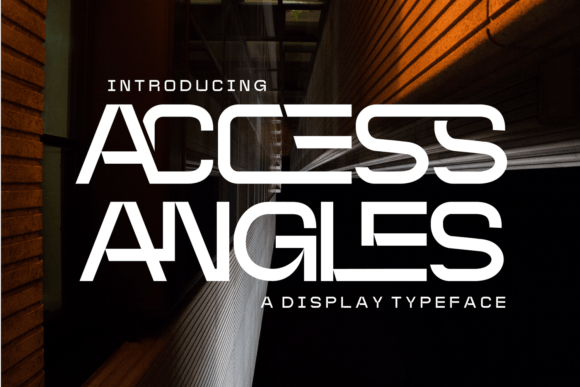
The Perfect Font for Your Next Design Project
Remember that moment when you’re brainstorming ideas for your next project, and you just can’t seem to find the right font to bring your vision to life? It’s frustrating, but don’t worry, we’ve got you covered. After scouring the web for the perfect sans serif font, we stumbled upon Access Angles Font – a game-changer for designers looking to give their projects a futuristic and modern twist.
Access Angles Font is a light and minimalist logo font family that’s perfect for creating clean and simple logos, social media graphics, and web designs. Its unique lowercase letters add a touch of elegance, making it an ideal choice for businesses and creatives alike. With Access Angles Font, you can take your designs to the next level and stand out in a crowded market.
Key Features of Access Angles Font
- Font Family: Access Angles is a sans-serif font family designed for digital use.
- Unique Characteristics: Features a distinctive geometric design with angled lines, creating a modern and dynamic feel.
Access Angles Font Review
Overall, I’m really impressed with the clean and modern aesthetic of the Access Angles Font. ✨ It’s perfect for creating a sleek and professional look in your designs. The font is highly legible, even at smaller sizes, making it ideal for body text.
- It has a wide range of weights, from light to bold, allowing for a lot of flexibility in terms of styling.
- The font is highly customizable, making it easy to adapt to different design needs.
- The font’s modern feel makes it perfect for contemporary branding and design projects.
However, there are some limitations to keep in mind: ⚠️ The font may not be suitable for projects that require a more traditional or classic look. Additionally, the font’s unique design may not be to everyone’s taste.
Overall, I think the Access Angles Font is a great choice for designers who want a modern and stylish font that’s highly customizable. While it may not be suitable for every project, it’s definitely worth considering for contemporary design projects.
Use Access Angles Font to create visually appealing headings and titles.
Combine Access Angles Font with other fonts to create a unique and eye-catching design.
Access Angles Font is ideal for:
Creativity-focused designs, such as art and design portfolios.
Headings and titles in brochures, flyers, and posters.
Branding and marketing materials, such as business cards and logos.